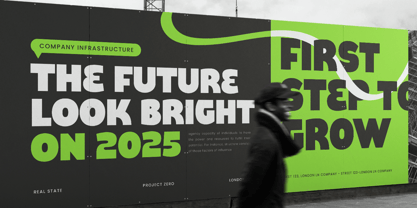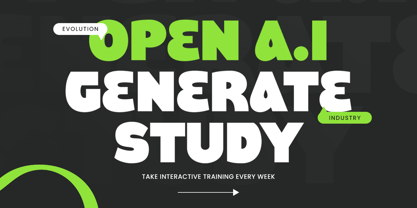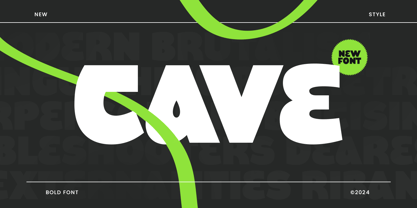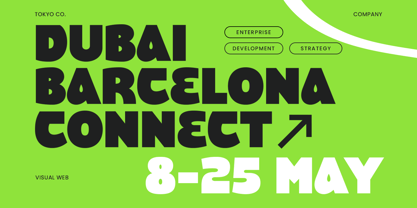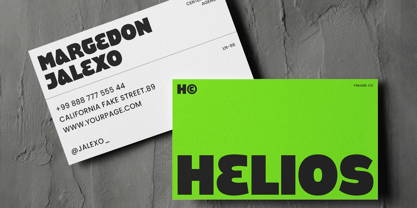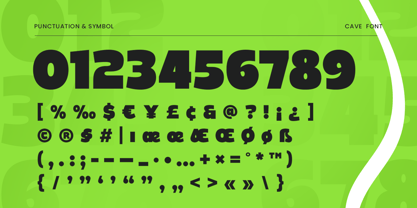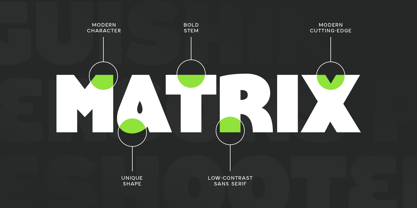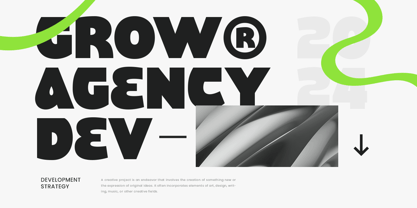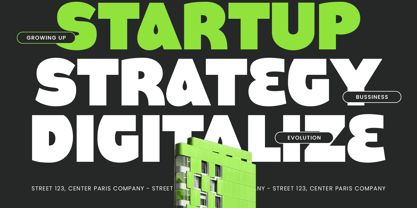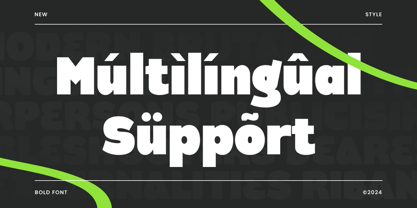
Cave SS
The Cave SS Font Family was designed by Zamroni Hamzah and published by Sensatype Studio. Cave SS contains 2 styles and family package options. More about this family
CAVE SS is a modern bold logo font designed to make a powerful statement. With its strong and dynamic lines, CAVE SS captures the essence of modern design while ensuring your logos and branding materials stand out. This versatile font is perfect for creating impactful and memorable designs that leave a lasting impression.
The Story Behind CAVE SS
CAVE SS was inspired by the desire to create a font that combines modern aesthetics with bold, impactful design. Drawing from contemporary trends and the need for strong visual communication, CAVE SS was crafted to meet the demands of designers looking for a unique and dynamic font. Its boldness and clarity make it ideal for projects that require a standout look.
Font Features:
• Strong and dynamic lines
• Versatile for various design projects
• Perfect for bold and modern branding
• Ensures logos and materials are eye-catching
• Suitable for creative and professional design aesthetics
Best For:
• Logo design
• Branding materials
• Advertising campaigns
• Product packaging
• Stylish website headers
Elevate your design projects with CAVE SS, the modern bold logo font that brings strength and impact to your brand.